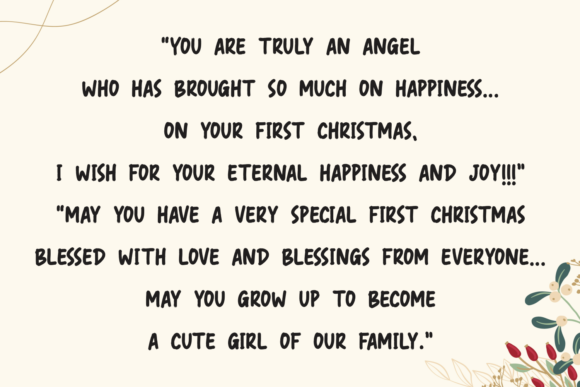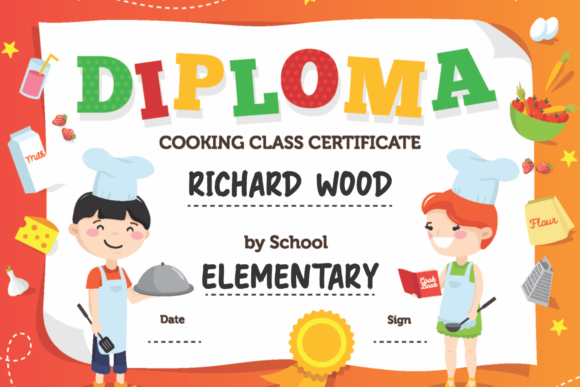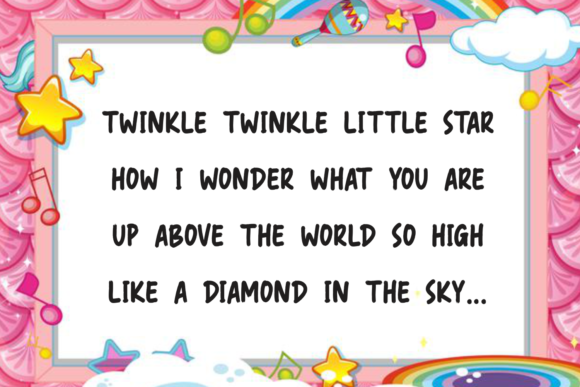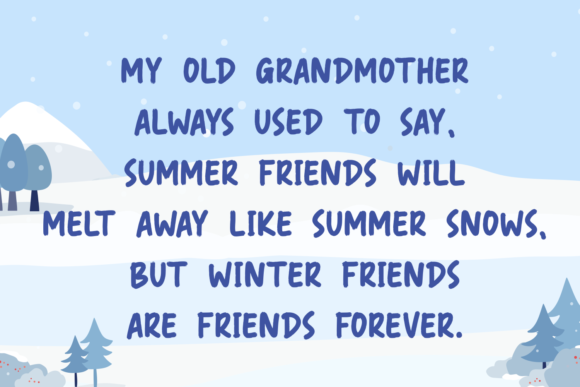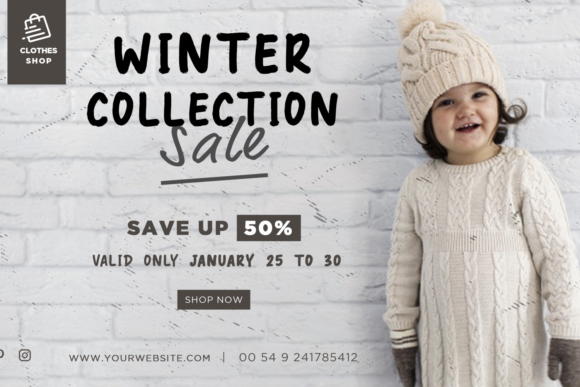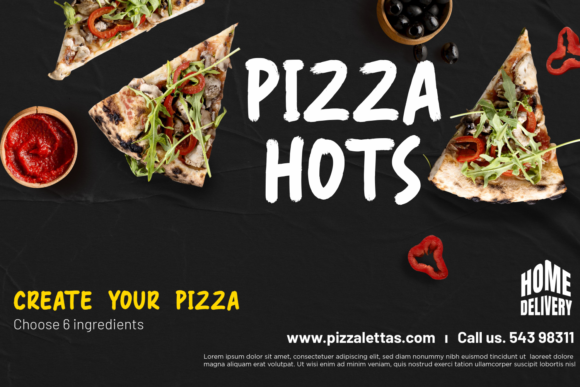
Introducing Father Christmas Font: A Cool Brushed Display Font for Your Holiday Designs
Are you looking for a font that captures the essence of the holiday season? Look no further than the Father Christmas font! This cool, brushed display font is perfect for creating stunning posters, flyers, and prints that will make your designs stand out. In this article, we’ll explore the features and benefits of the Father Christmas font, and show you how to use it to take your designs to the next level.
What is Father Christmas Font?
Father Christmas font is a unique and eye-catching display font that is inspired by the magic of the holiday season. With its brushed texture and bold lettering, this font is perfect for creating festive and fun designs that will grab attention. Whether you’re designing a poster, flyer, or print, the Father Christmas font is sure to add a touch of holiday cheer to your project.
Key Features of Father Christmas Font
- Cool Brushed Texture: The Father Christmas font features a cool brushed texture that gives it a unique and eye-catching look.
- Bold Lettering: The font has bold lettering that makes it perfect for creating attention-grabbing headlines and titles.
- Easy to Read: Despite its bold and brushed texture, the Father Christmas font is easy to read, making it perfect for use on posters, flyers, and prints.
- Versatile: The font is versatile and can be used for a wide range of designs, from holiday-themed posters to craft projects.
Benefits of Using Father Christmas Font
So why should you use the Father Christmas font for your designs? Here are just a few benefits:
- Adds a Touch of Holiday Cheer: The Father Christmas font is perfect for adding a touch of holiday cheer to your designs.
- Grabs Attention: The bold and brushed texture of the font makes it perfect for grabbing attention and drawing the eye.
- Endless Possibilities: With the Father Christmas font, the possibilities are endless. Use it for posters, flyers, prints, and more!
How to Use Father Christmas Font
Using the Father Christmas font is easy! Here are a few tips to get you started:
- Choose Your Design: Choose the design you want to create, whether it’s a poster, flyer, or print.
- Type Your Text: Type your text using the Father Christmas font.
- Experiment with Different Sizes and Colors: Experiment with different sizes and colors to find the perfect look for your design.
Design Ideas Using Father Christmas Font
The Father Christmas font is perfect for a wide range of designs, including:
- Holiday Posters: Create stunning holiday posters using the Father Christmas font.
- Flyers: Use the font to create eye-catching flyers for holiday events and promotions.
- Prints: Add a touch of holiday cheer to your prints using the Father Christmas font.
- Craft Projects: Use the font to create festive and fun craft projects, such as holiday cards and gift tags.
In conclusion, the Father Christmas font is a cool, brushed display font that is perfect for adding a touch of holiday cheer to your designs. With its bold lettering and easy-to-read texture, this font is sure to grab attention and make your designs stand out. Whether you’re a designer or crafter, the Father Christmas font is a must-have for your holiday designs. So why wait? Download the font today and start exploring its endless possibilities!